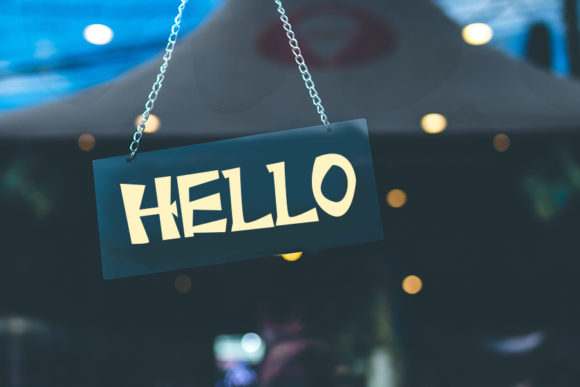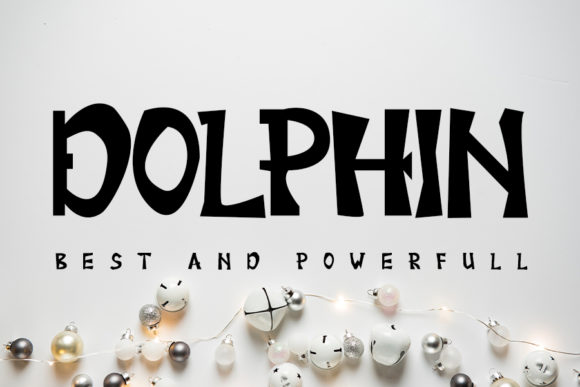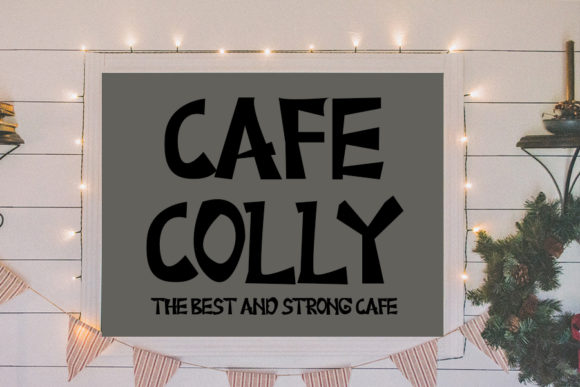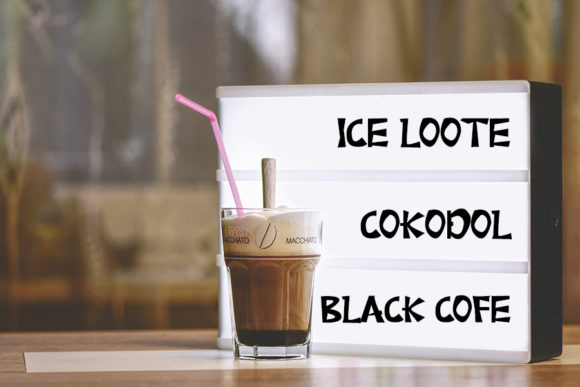
Introducing the Biggest Snake Font: A Timeless Display Font for Creative Projects
Are you tired of using the same old fonts for your design projects? Look no further! The Biggest Snake Font is a unique display font that is sure to add a touch of personality to your creations. With its timeless style and casual vibe, this font is perfect for a variety of applications, from logos and greeting cards to branding and social media posts.
What Makes the Biggest Snake Font So Special?
The Biggest Snake Font is a one-of-a-kind display font that features a distinctive, eye-catching design. Its unique style is sure to make your projects stand out from the crowd, and its versatility makes it perfect for a wide range of creative applications. Whether you’re a designer, crafty DIY enthusiast, or social media influencer, this font is sure to become a favorite in your collection.
Key Features of the Biggest Snake Font
- Timeless Style: The Biggest Snake Font features a classic, timeless design that will never go out of style.
- Unique Display Font: This font is perfect for making a statement and adding a touch of personality to your projects.
- Casual Vibe: The Biggest Snake Font has a relaxed, casual feel that’s perfect for social media posts, greeting cards, and other creative projects.
- Versatile: This font can be used for a wide range of applications, from logos and branding to craft projects and DIY designs.
The Biggest Snake Font is a dream come true for designers and crafters who are looking for a unique and versatile font to add to their collection. Whether you’re creating a logo for a new business, designing a greeting card for a special occasion, or crafting a DIY project, this font is sure to inspire your creativity.
Use Cases for the Biggest Snake Font
- Logos: Use the Biggest Snake Font to create a memorable and eye-catching logo for your business or brand.
- Greeting Cards: Add a personal touch to your greeting cards with this unique and stylish font.
- Branding: Use the Biggest Snake Font to create a consistent and recognizable brand identity.
- Social Media Posts: Make your social media posts stand out with this eye-catching font.
- Craft Projects: Add a touch of personality to your craft projects, such as scrapbooking, journaling, and more.
Why Choose the Biggest Snake Font?
With so many fonts to choose from, why should you choose the Biggest Snake Font? Here are just a few reasons:
- Unique Design: This font features a distinctive design that’s sure to make your projects stand out.
- High-Quality: The Biggest Snake Font is a high-quality font that’s designed to look great in any application.
The Biggest Snake Font is a unique and versatile display font that’s perfect for a wide range of creative projects. With its timeless style, casual vibe, and eye-catching design, this font is sure to become a favorite among designers and crafters. Whether you’re creating a logo, greeting card, or social media post, the Biggest Snake Font is the perfect choice. So why wait? Download the Biggest Snake Font today and start adding a touch of personality to your projects!